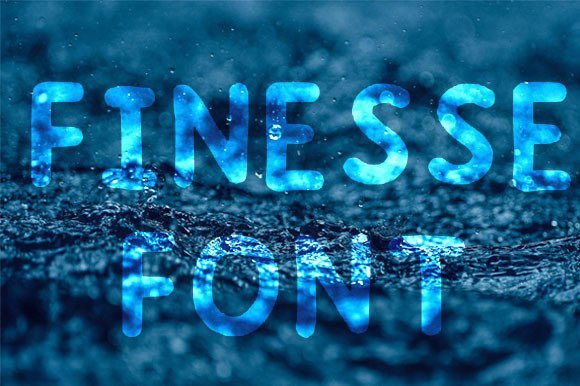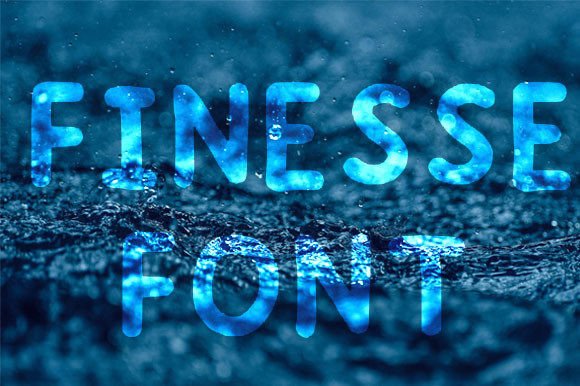
Unlock the Magic of Finesse Font
Have you ever stared at a blank page, waiting for inspiration to strike? For designers, those moments of creative block can be the most frustrating – but also the most exciting. It’s in those moments that we discover new ideas, experiment with fresh styles, and push the boundaries of our craft.
That’s where Finesse Font comes in – a fun and quirky handwritten font that adds a touch of whimsy to any project. With its playful strokes and elegant curves, Finesse Font is the perfect addition to your design toolkit. Whether you’re creating a branding campaign, designing a wedding invitation, or crafting a social media graphic, this font is sure to bring a smile to your face and a touch of sophistication to your work.
As designers, we’re always on the lookout for fonts that bring a little extra something to the table. Finesse Font delivers on that promise, offering a unique and versatile style that’s sure to elevate your projects and leave a lasting impression.
Finesse Font Key Features
- Font Family: Finesse Font is a premium sans-serif font family designed for various applications, including digital and print media.
- Character Set: Finesse Font includes a comprehensive set of characters, including uppercase and lowercase letters, numerals, punctuation marks, and special characters.
- Unique Characteristics: Finesse Font features a unique blend of modern and elegant design elements, with subtle rounded edges and precise typography, making it perfect for creating sophisticated and professional-looking designs.
Finesse Font Review
I recently had the chance to work with the Finesse Font, and I must say it’s a mixed bag. Let’s start with the positives: ✨ The font has a lovely elegance to it, perfect for creating a sophisticated and refined atmosphere. The subtle curves and smooth lines make it a joy to read, and the font pairs well with a variety of backgrounds and colors.
One of the standout features of Finesse Font is its versatility. It’s suitable for both digital and print media, and it can be used for a range of applications, from logos and branding to body text and headings. ✨ Additionally, the font is highly legible, making it an excellent choice for anyone who needs to convey complex information in a clear and concise manner.
- ⚠️ The font may not be as bold or attention-grabbing as some other options, which could make it less suitable for headlines or titles.
- ⚠️ The font family is relatively small, which may limit its customization options.
- ⚠️ The font may not be compatible with all operating systems or devices, which could cause issues with consistency and readability.
Overall, I would recommend Finesse Font for projects that require a touch of sophistication and elegance. While it may have some limitations, the font’s unique charm and versatility make it a solid choice for designers who want to create a high-end look without breaking the bank.
Tips for Getting the Most Out of Finesse Font
Use Finesse Font to create elegant and sophisticated designs. Pair it with bold or italic fonts to create contrast and add visual interest. Experiment with different font sizes and styles to achieve the desired effect.
Finesse Font is ideal for creating high-end branding materials, such as business cards and brochures. It’s also great for designing elegant invitations, menus, and other promotional materials.